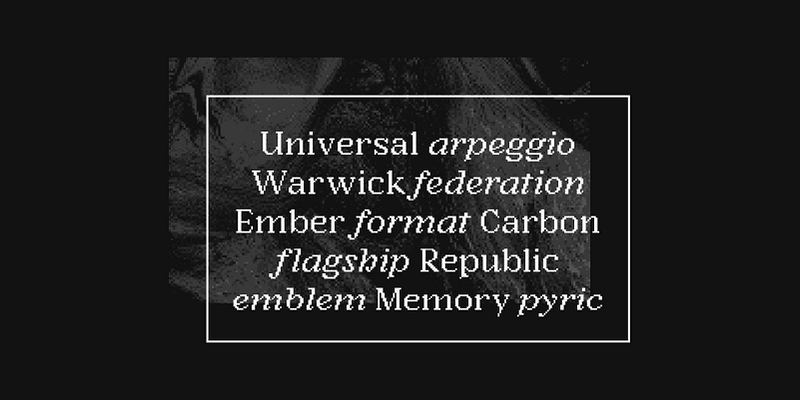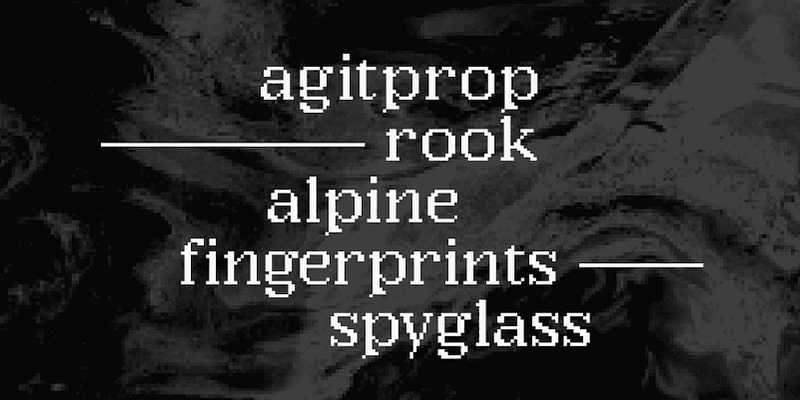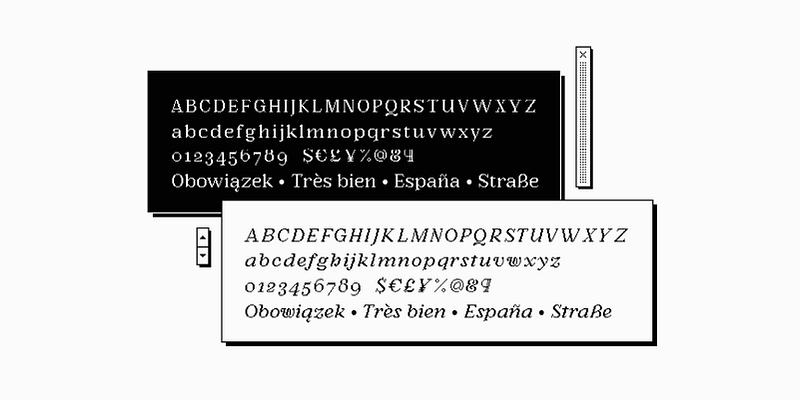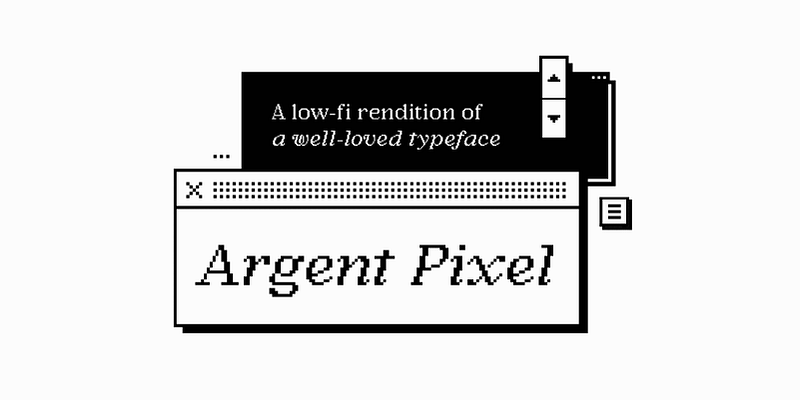
Argent Pixel CF is a playful bitmap version of the original dashing Argent typeface. With a pronounced x-height, this unexpectedly readable serif recreates the original font’s distinctive look in a style evocative of early Macintosh typography. It’s readily useful with its angled serifs and swashy italics for all kinds of typographic tasks needing a retro, low-resolution aesthetic, such as identities and brands, advertising, magazines and journals, book covers, packaging and labels, and more.